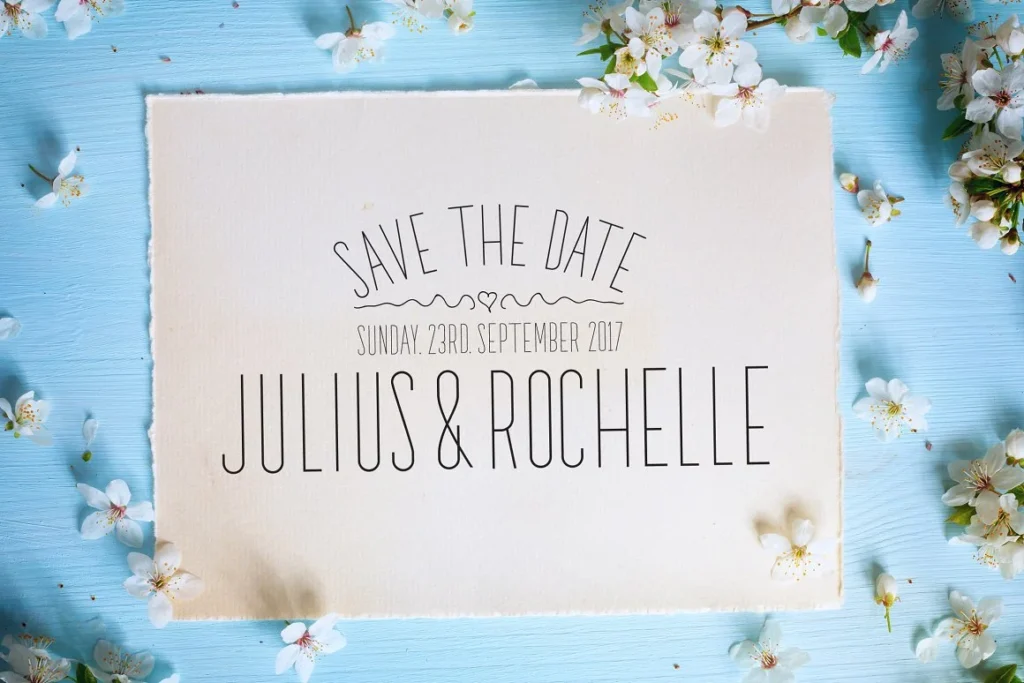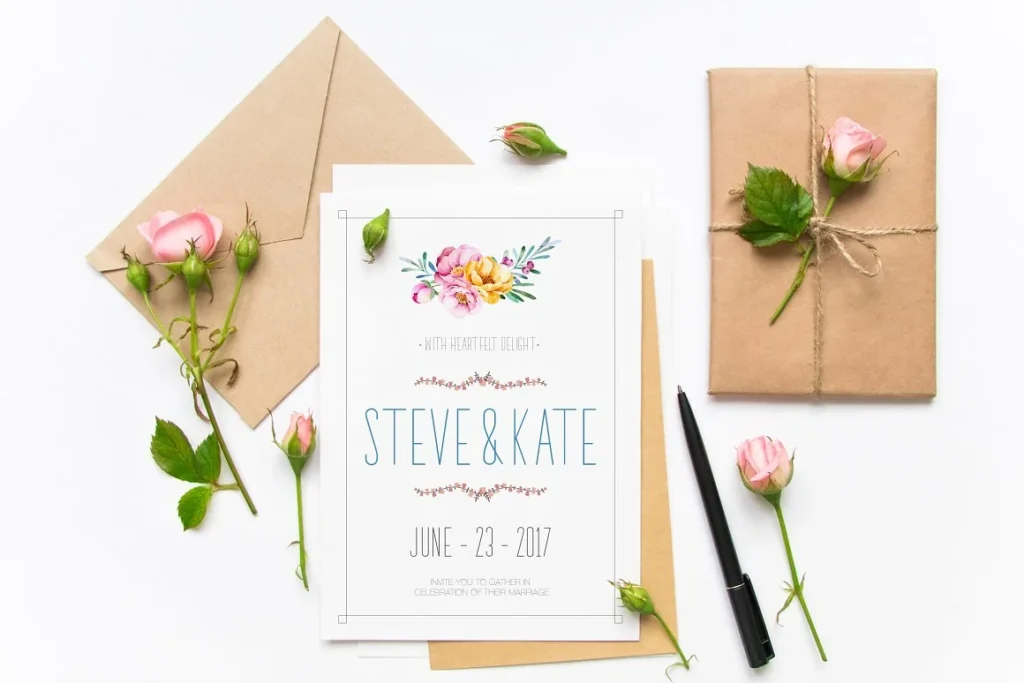
๐ฟ Introducing Sprout Typeface Sans Serif Font ! ๐ฟ Unleash your creativity with this modern and versatile typeface, perfect for branding, web design, and print projects.
Whether you’re designing a logo or creating stunning social media graphics, Sprout will elevate your work with its clean lines and unique character.
Sprout Typeface Sans Serif Font the design process, showcase real-life examples, and provide tips on how to effectively incorporate Sprout into your projects.